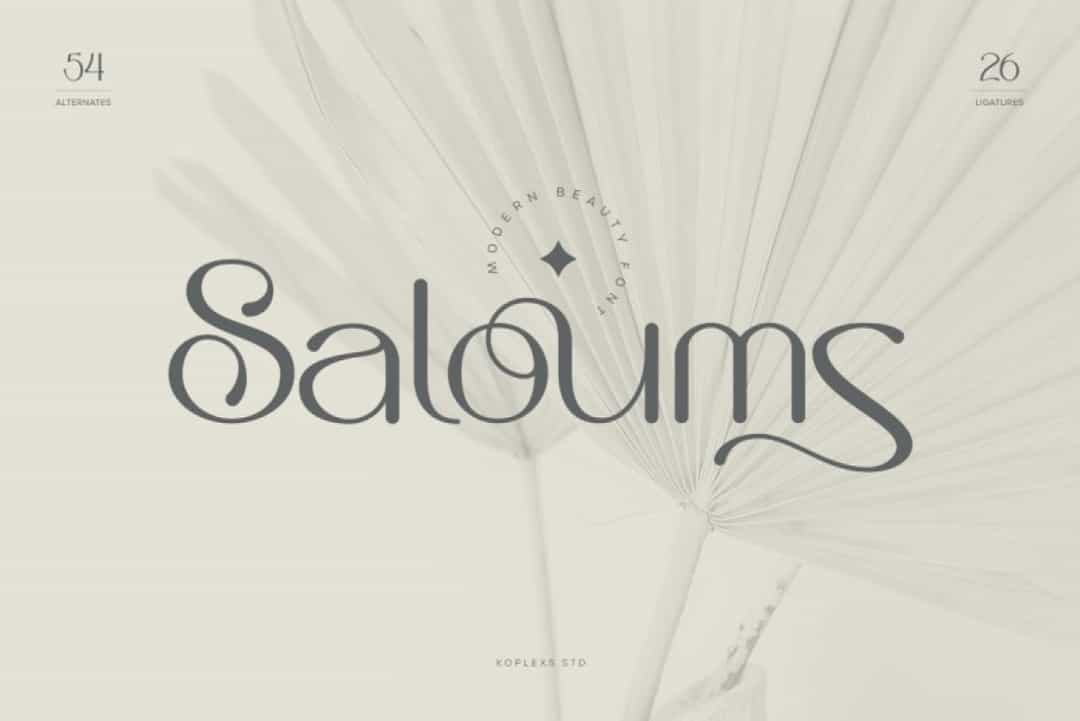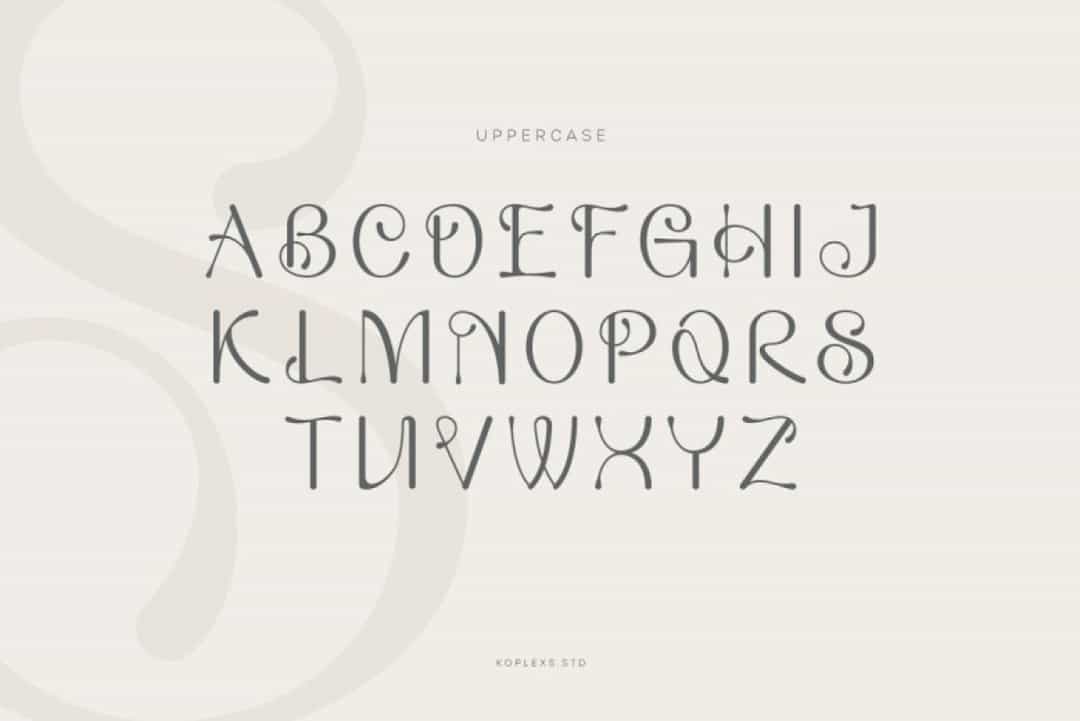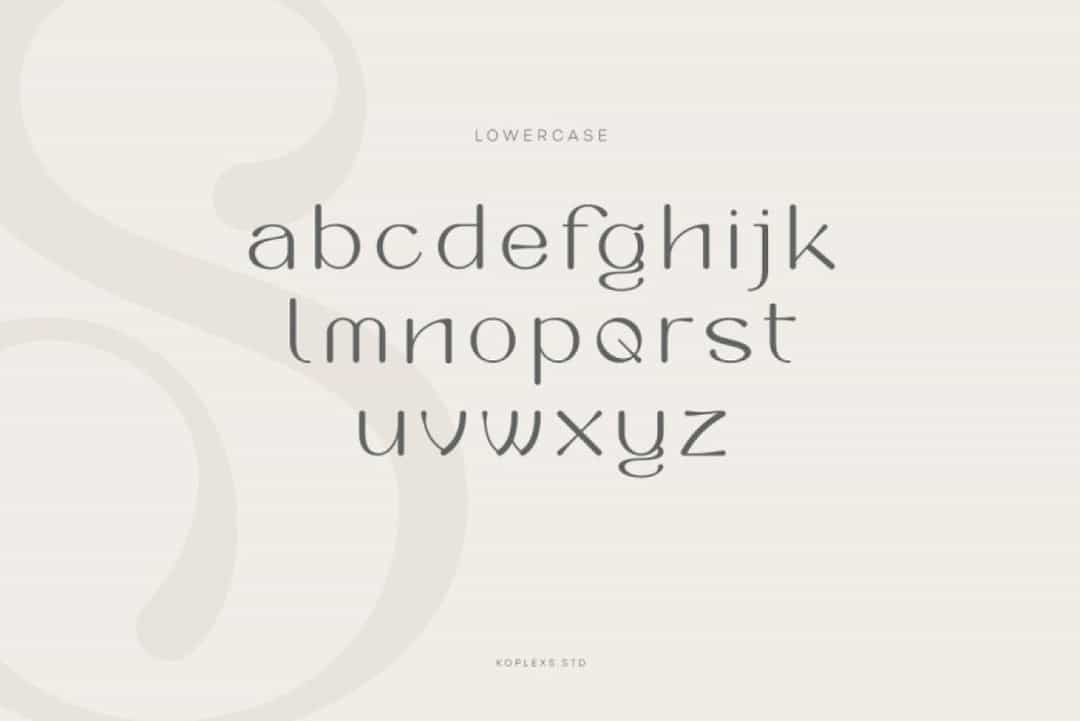
Saloums Font is an elegant collection of feminine characters designed for every branding or design requirement, providing a distinctive aesthetic for branding or designing purposes. Saloums is an alluring combination of style and grace; used for book covers, logos, perfumes, fashion magazines or invitations among other uses.